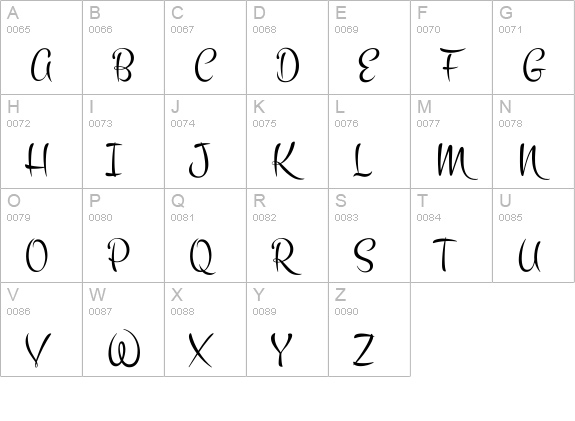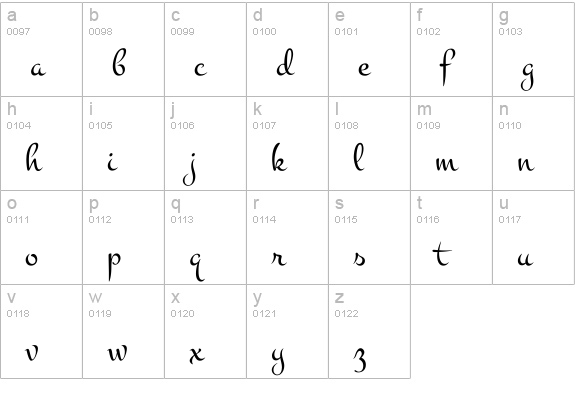
Introducing Montez, a breathtakingly beautiful font that effortlessly combines elegance with a touch of modern sophistication. This versatile typeface is perfect for any project that requires a touch of class, whether it's a wedding invitation, a luxurious brand logo, or a stylish magazine layout. With its graceful curves and delicate lines, Montez exudes a sense of timeless beauty. Each letter is carefully crafted to perfection, resulting in a font that is both visually stunning and easy to read. Whether used for headlines or body text, Montez effortlessly captivates the reader's attention, leaving a lasting impression. What makes Montez even more impressive is that it is free to download. Yes, that's right – this exquisite font can be yours without spending a penny. Simply head over to FontsMarket.com, and you'll find Montez waiting for you, ready to elevate your designs to a whole new level. Don't miss out on the opportunity to enhance your creative projects with the allure and elegance of Montez. Its free availability makes it even more appealing, allowing you to add a touch of sophistication to your designs without breaking the bank. Download Montez today and unlock the beauty of this extraordinary font.